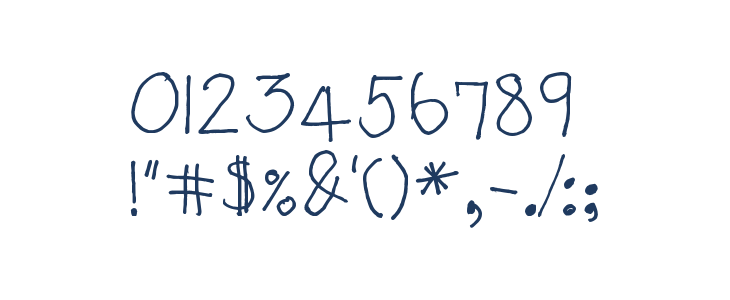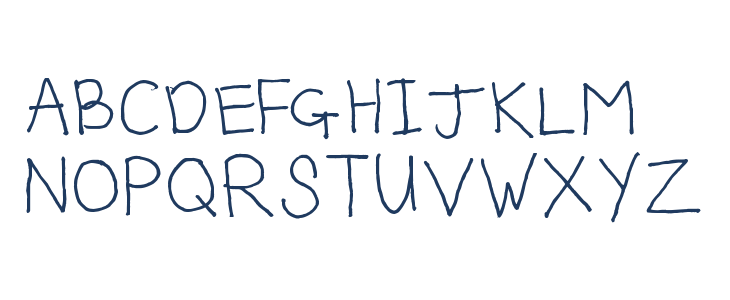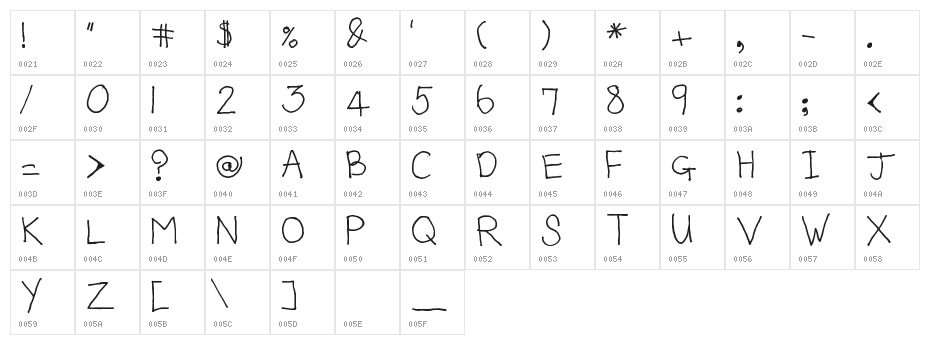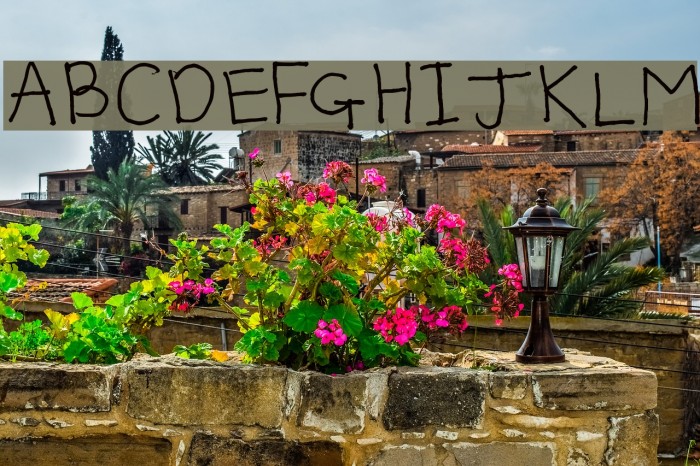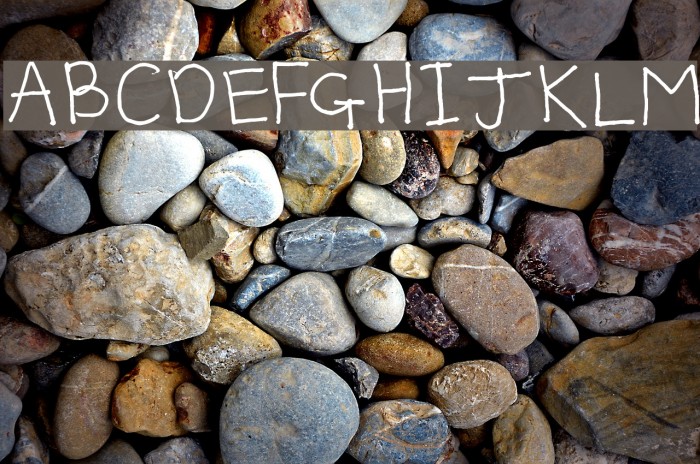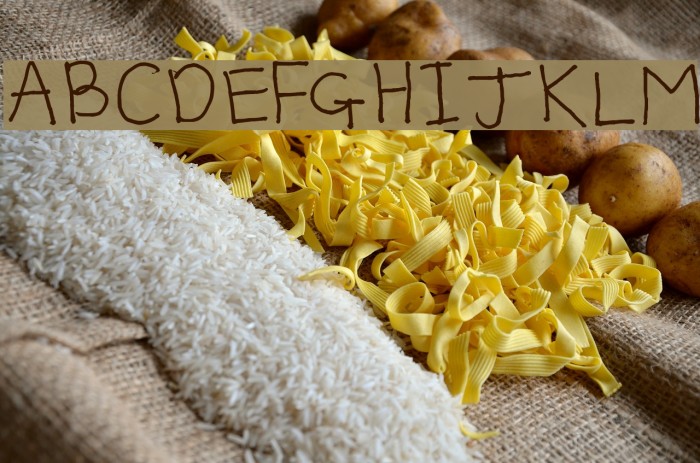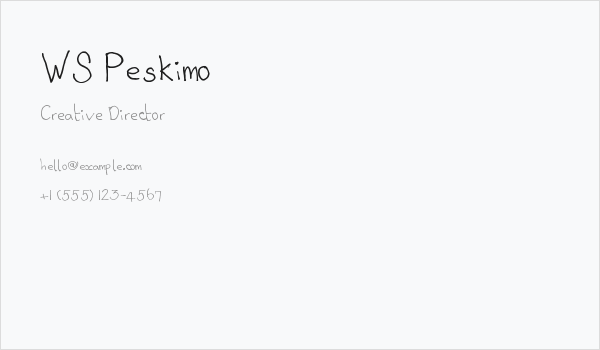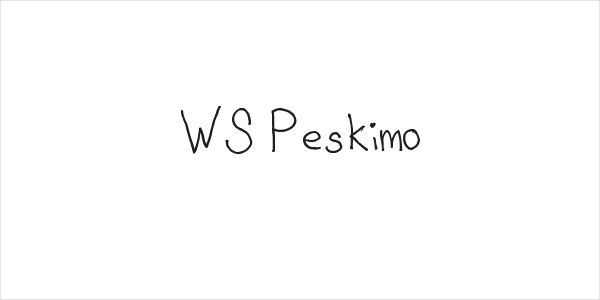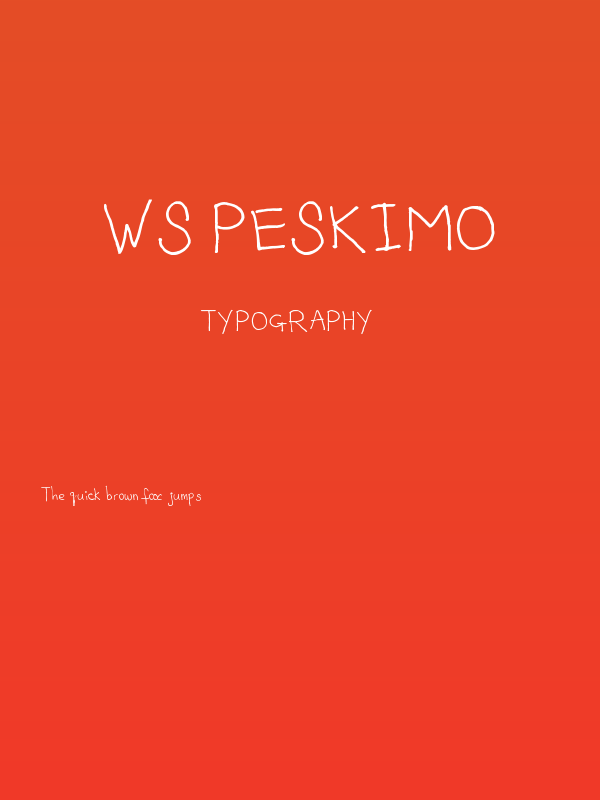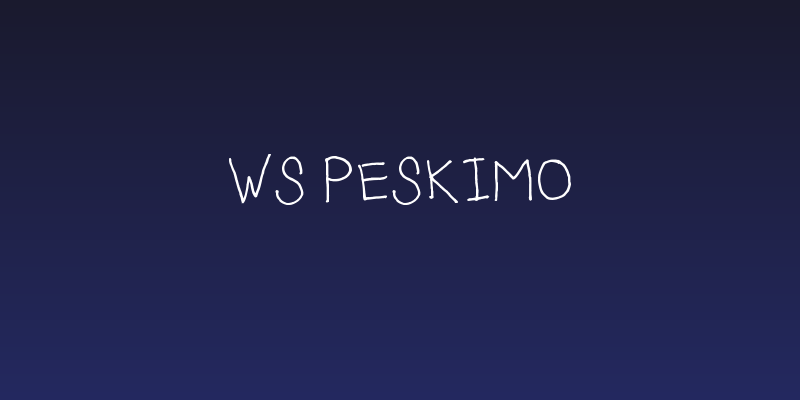
WS Peskimo Font
WS Peskimo Description
This font exhibits a playful and informal handwritten style, characterized by its irregular strokes and whimsical appearance. The letters are unevenly sized and spaced, giving it a casual, spontaneous feel. The uppercase letters maintain a consistent height, while the lowercase letters vary more in size, adding to the font's charm. Numbers and special characters follow the same playful design, making it suitable for creative projects. The overall look is friendly and approachable, perfect for designs that aim to convey warmth and personality.
| Proposed Projects | Ideal for children's books, greeting cards, personal blogs, and creative branding projects. |